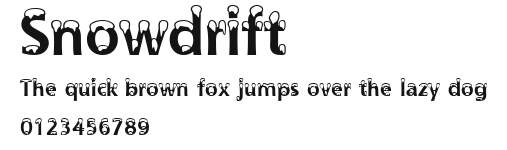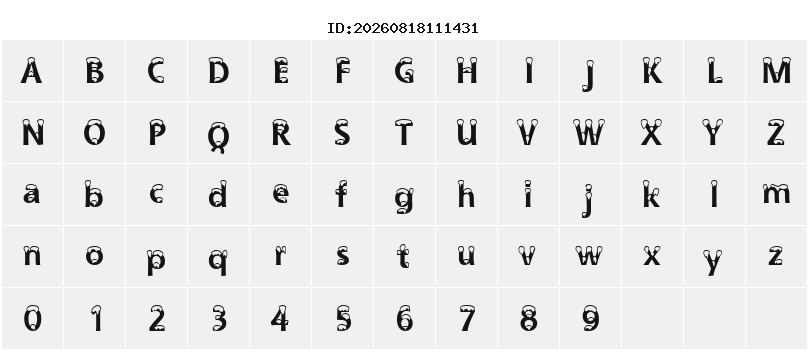
Snowdrift Preview
• Font Name: Snowdrift
• Full Font Name: Snowdrift
About Snowdrift.ttf
Snowdrift.ttf is a modern, elegant sans-serif font designed for ultimate readability and visual harmony. Perfect for branding, headlines, web design, and print materials.